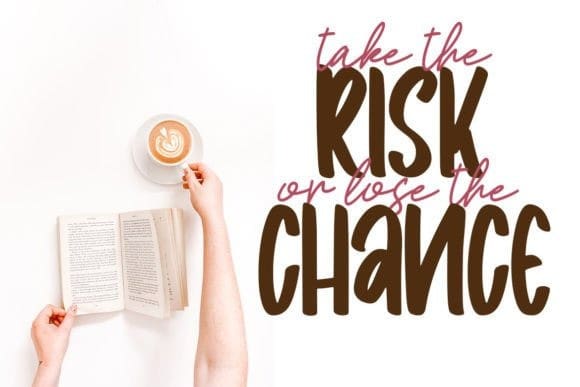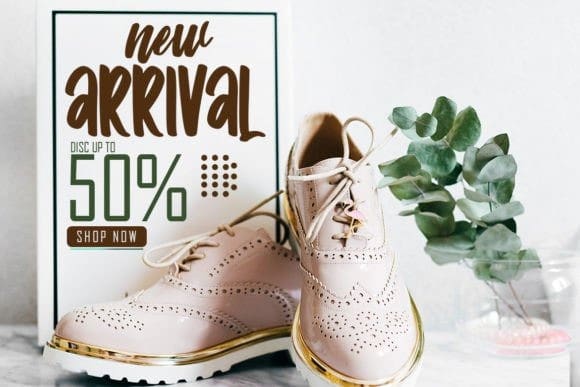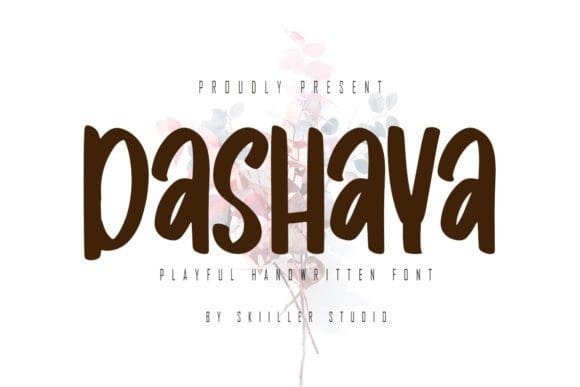
Dashaya Playful Font
Dashaya Playful Font is a playful and unique handwritten display font. It looks beautiful on a variety of designs requiring a personalized style.